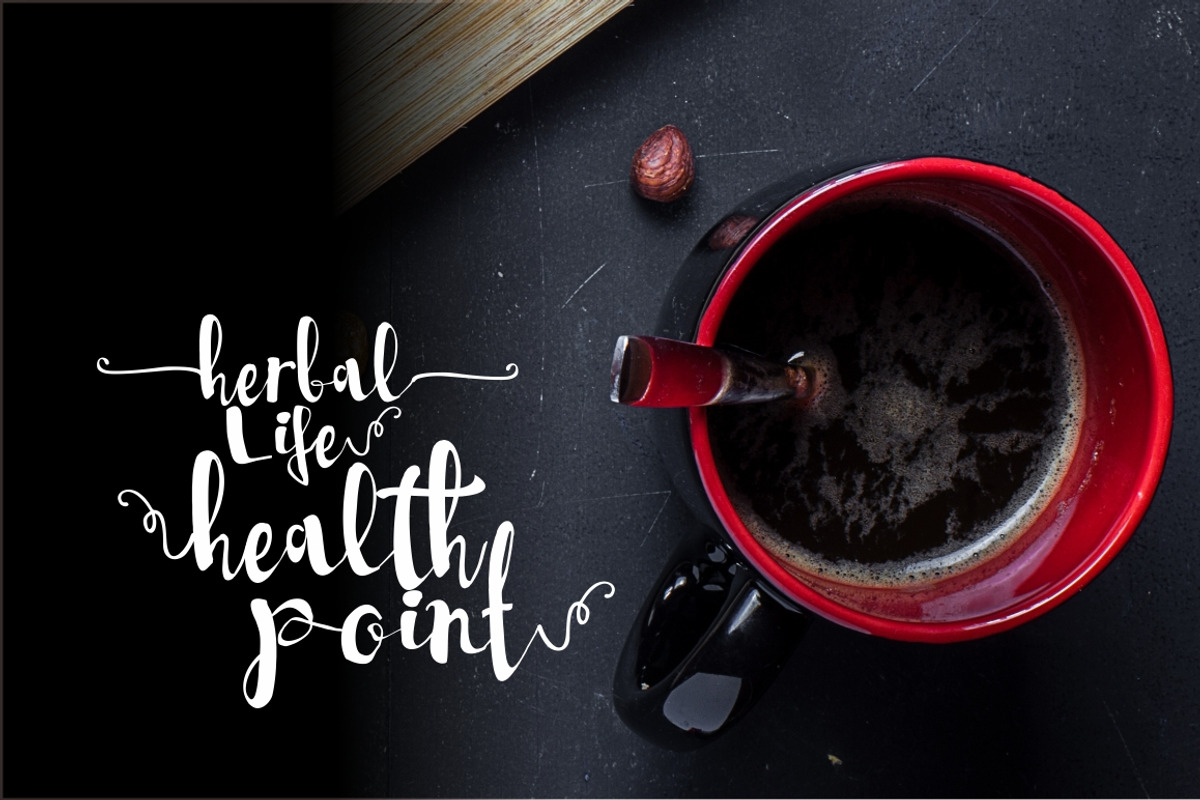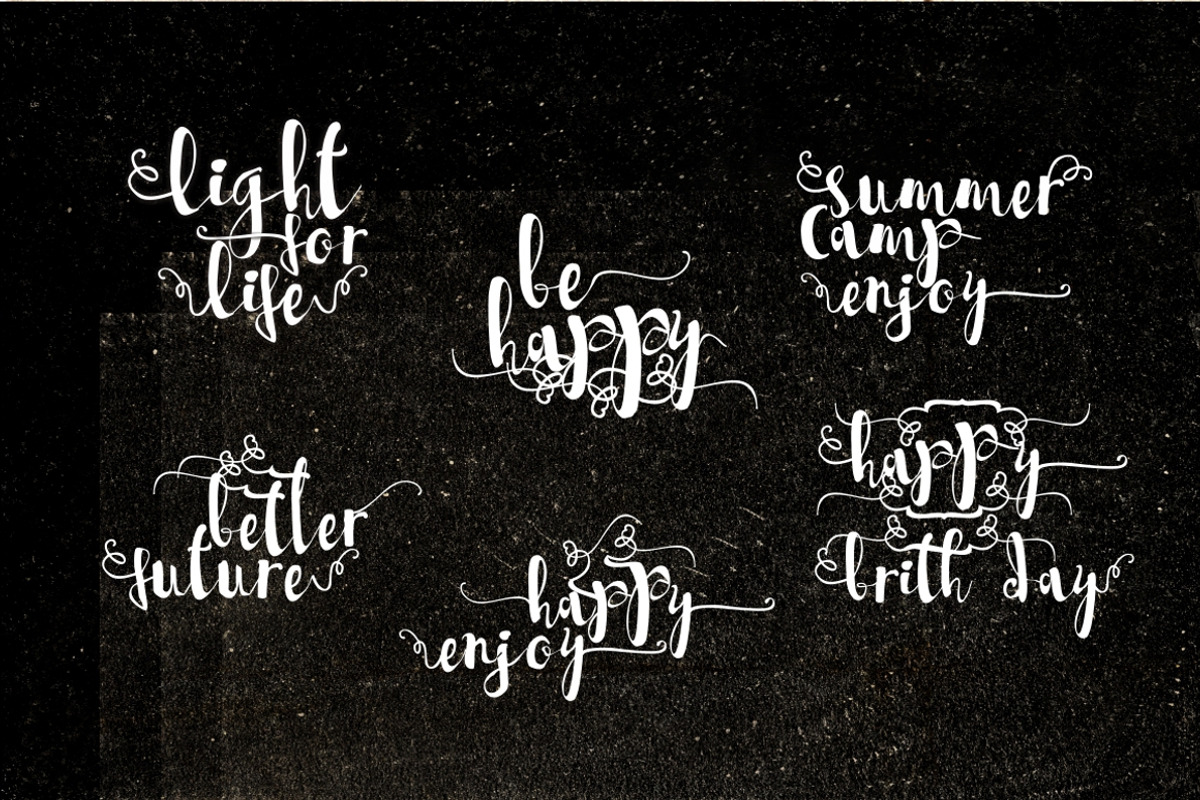
SHILLA
Shilla is typeface combine modern and classic taste, this font is Ideal and special for wedding and cerremony invitations, signage, headlines, logotypes, packaging, poster, product branding, etc. including alternet stylistic for normal and ligature This font special creative glyphs, ligature alternates and ampersand character